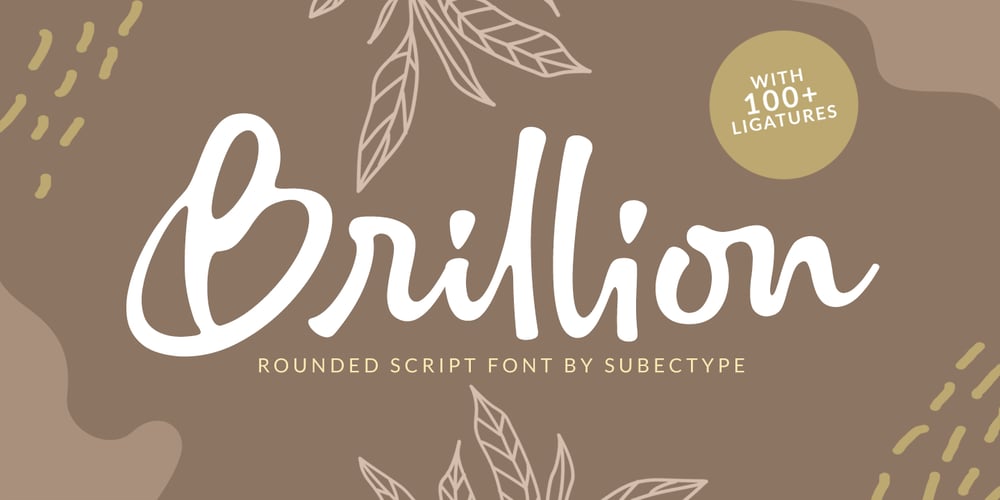
Brillion
Brillion font
Brillion Font Family was designed by Rangga Subekti and published by Subectype. Brillion contains 2 styles and family package options. Brillion is a casual, rounded handwritten font. Perfect for your personal branding and any awesome project such as logos, invitations, stationery, wedding designs, social media posts, advertisements, product packaging, product designs, labels, photography, watermarks, special events and much more ! Brillion comes in Regular & Italic style, with 100+ Ligatures and includes Multilingual support. If you have any questions please don’t hesitate to drop me a message.